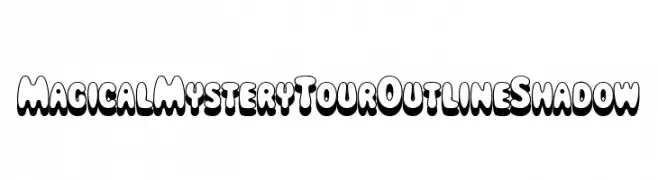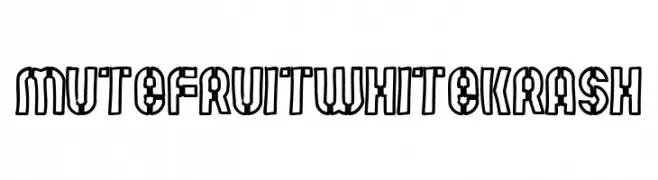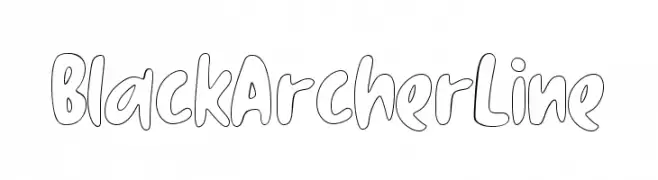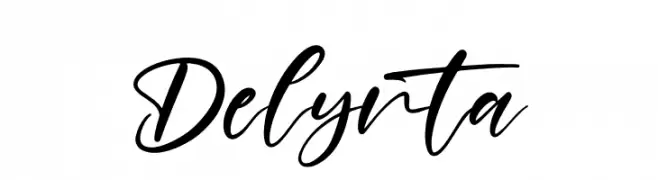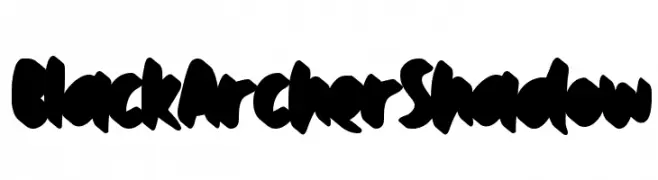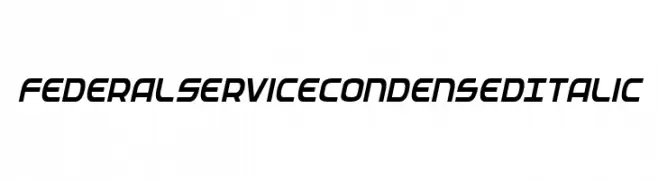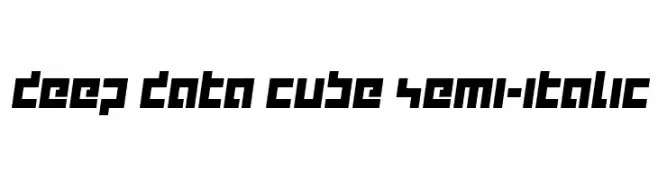
A playful, bold font with a unique outline and shadow effect, perfect for fun designs.
A bold, outlined font with a playful, three-dimensional style.
A playful, hand-drawn bubble font with rounded edges and a whimsical style.
A dynamic and fluid script font with an elegant, handwritten style.
A bold, italic, and condensed font with a futuristic and dynamic style.
An elegant, flowing script font with graceful curves and cursive strokes.
Bold, shadowed font with a playful and artistic style.
A modern, condensed, and italicized font with a sleek, geometric design.
A bold, geometric font with a futuristic, semi-italic style.
A bold, energetic script font with flowing, interconnected strokes.